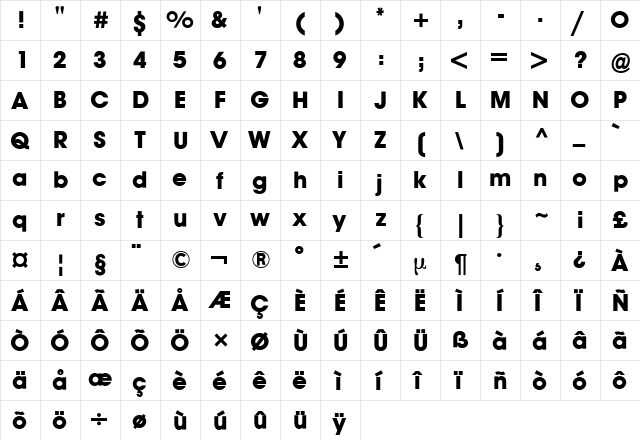
Avant Garde BQ Bold
Avant Garde BQ is a composed and adaptable typeface that performs quietly and consistently across a wide range of design contexts. Its bold stroke weight gives it real presence on the page.